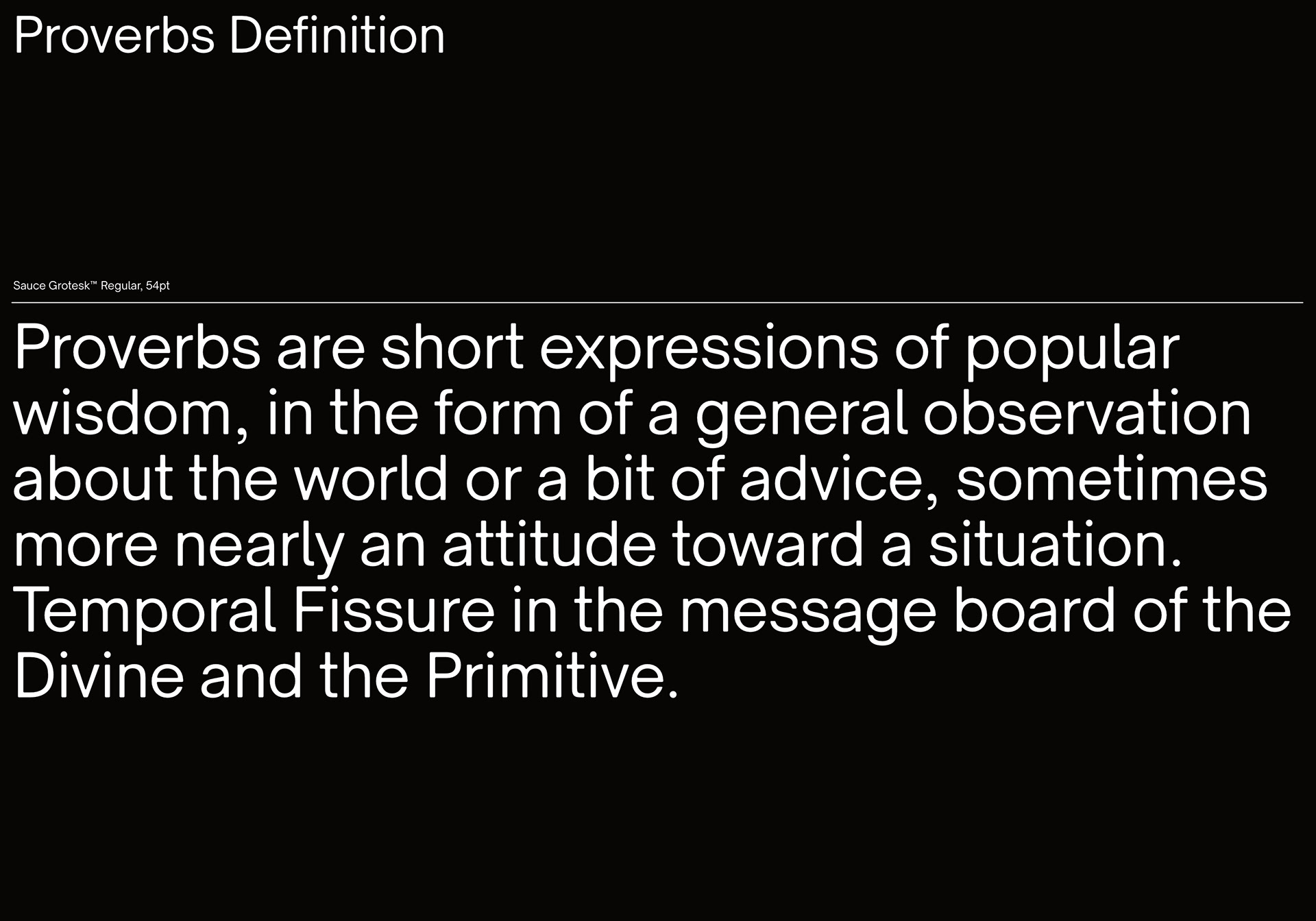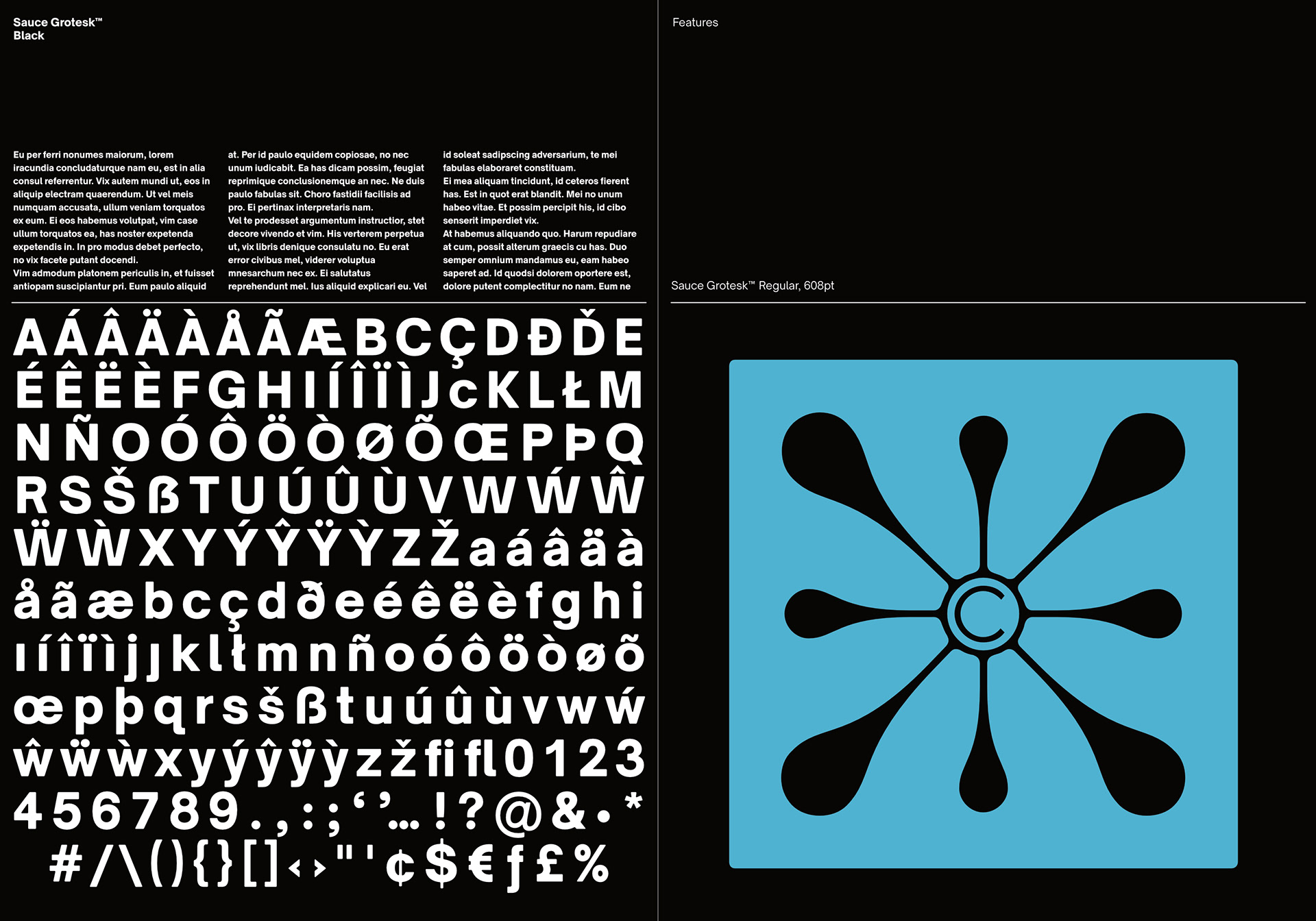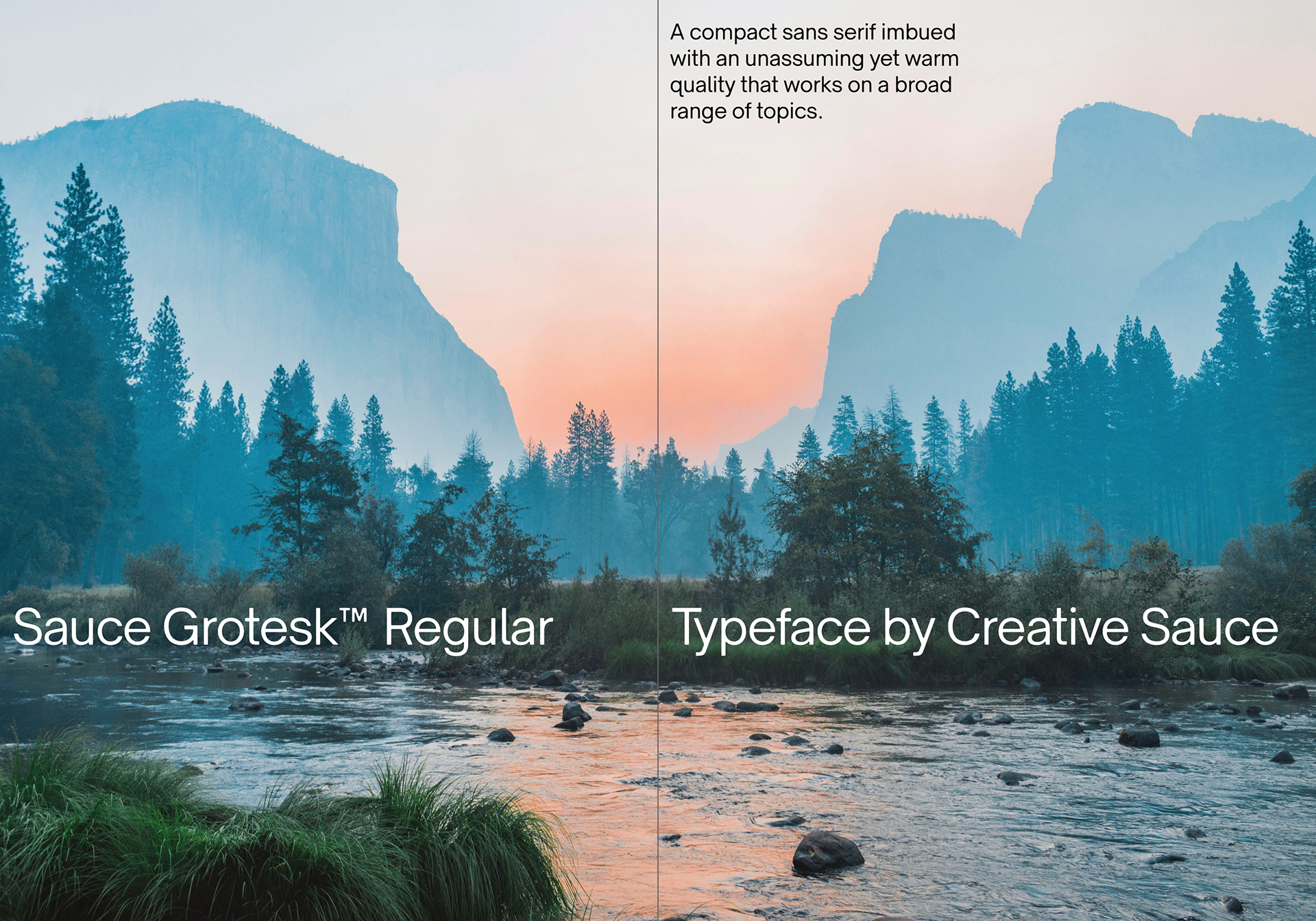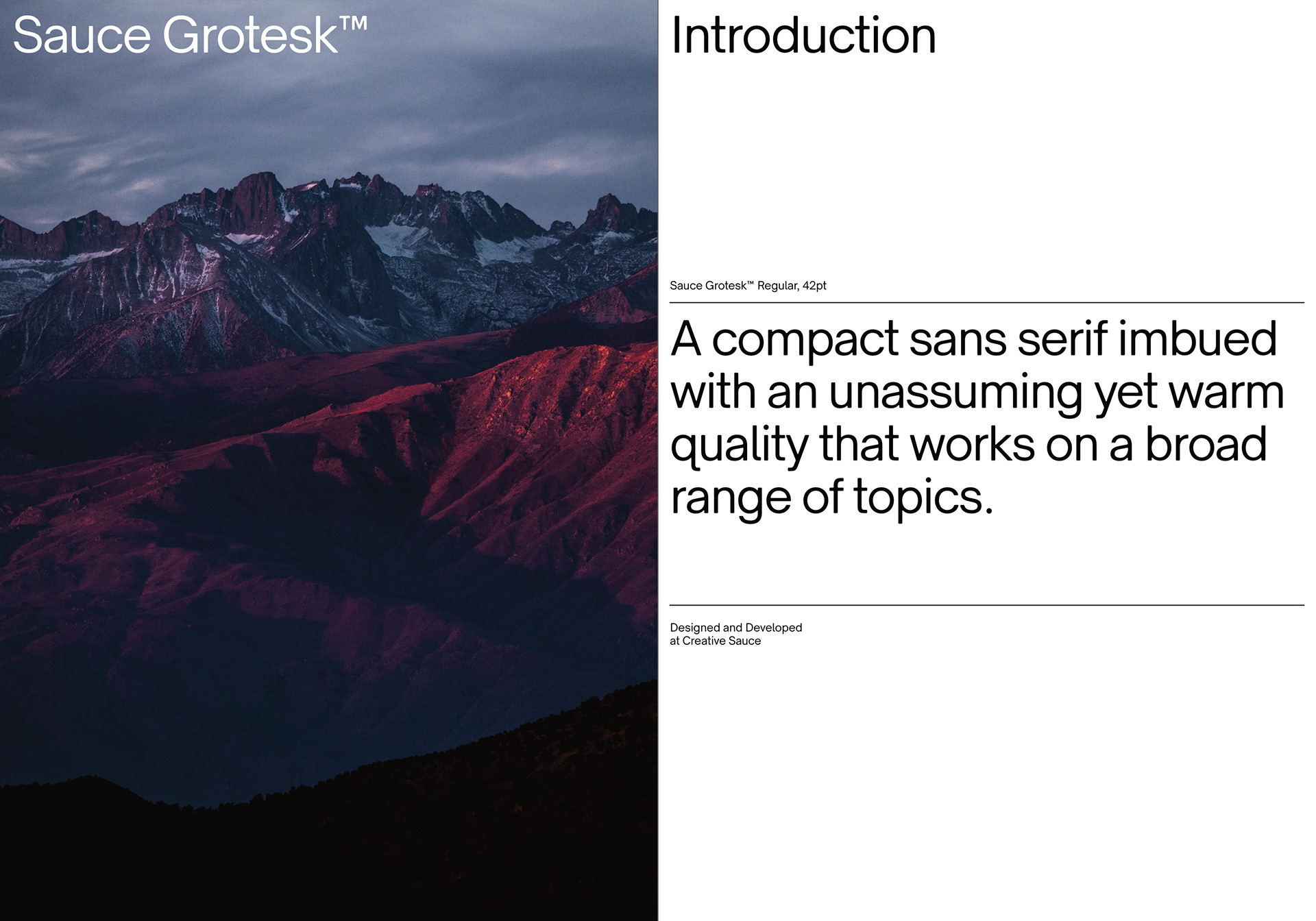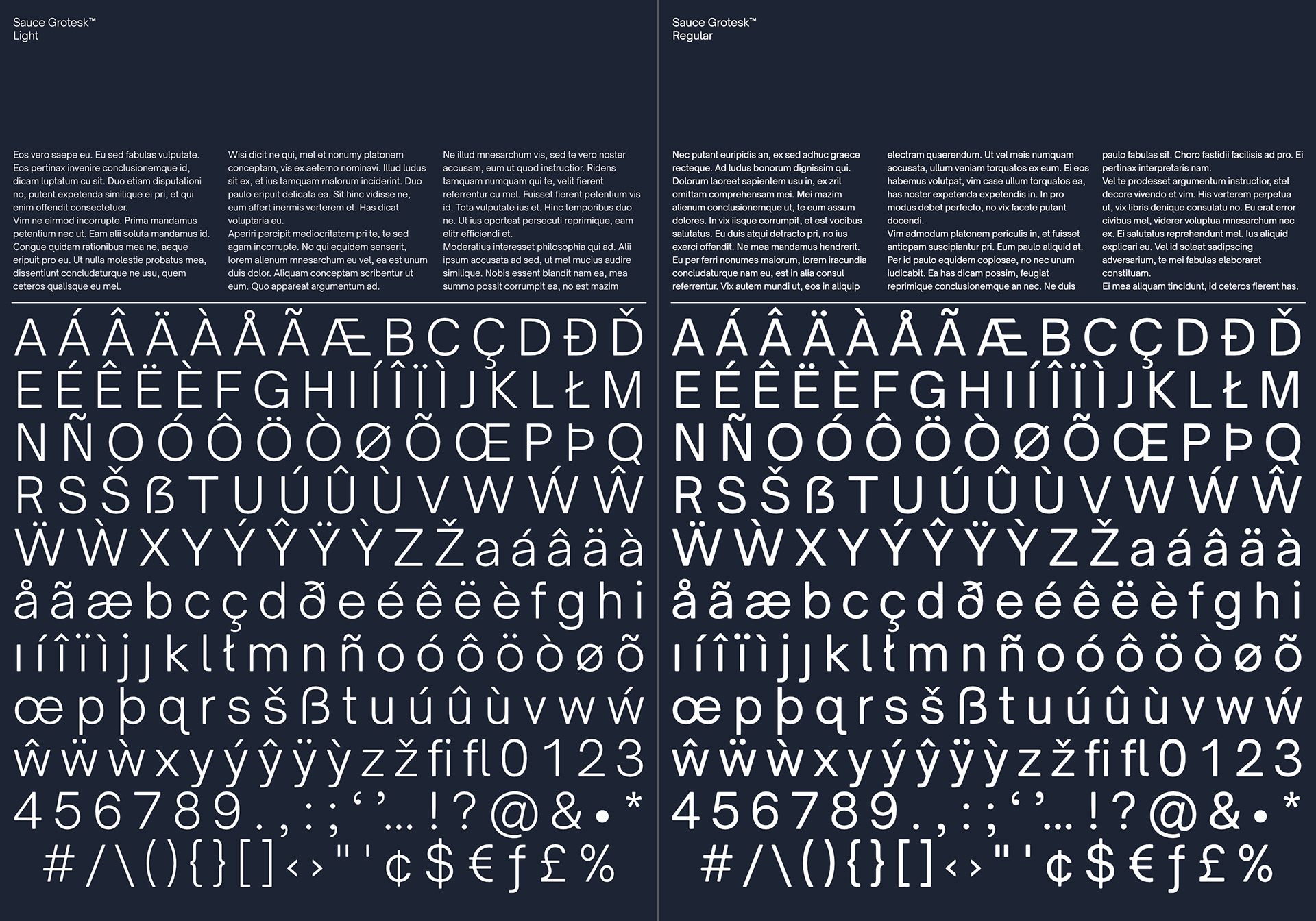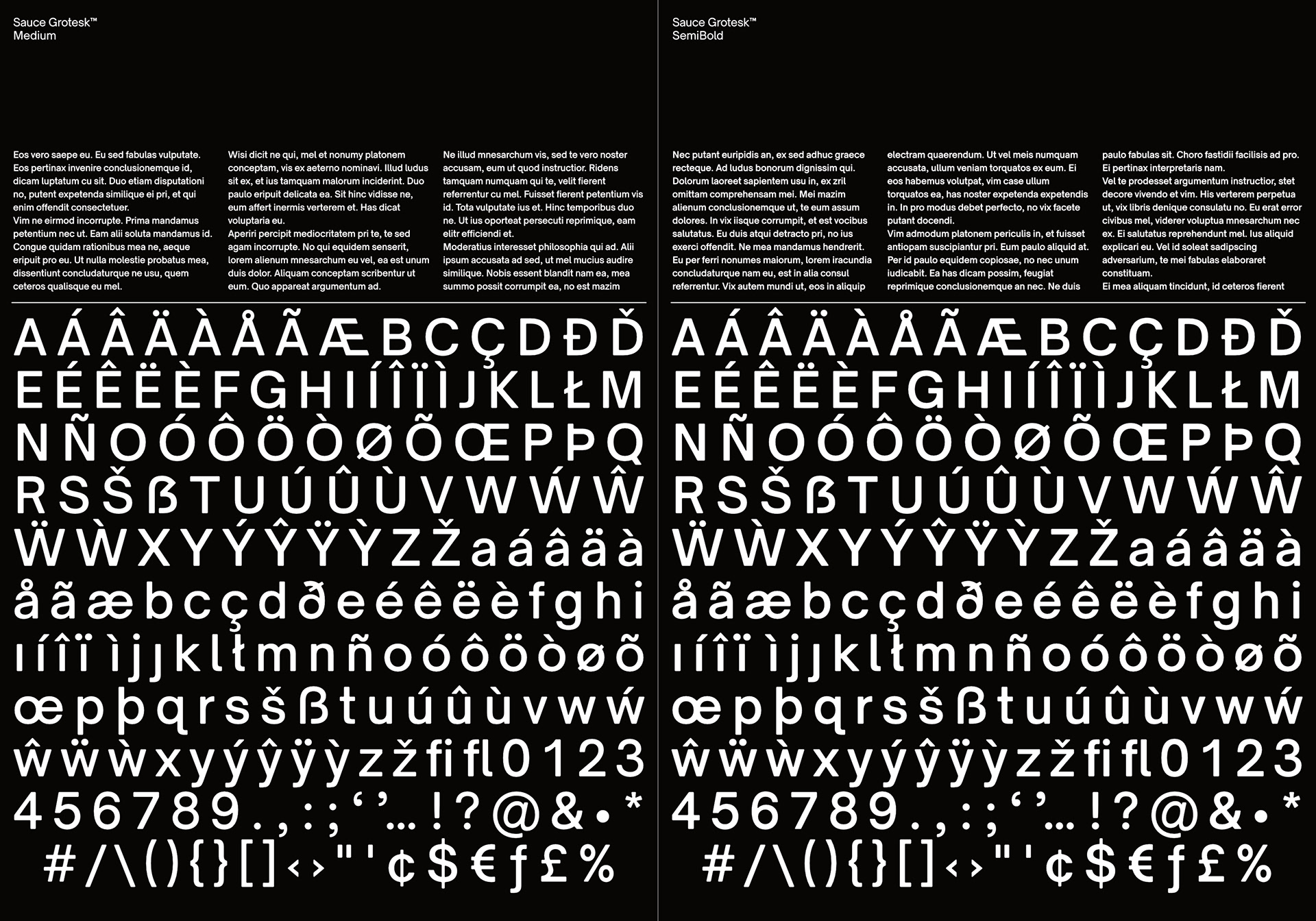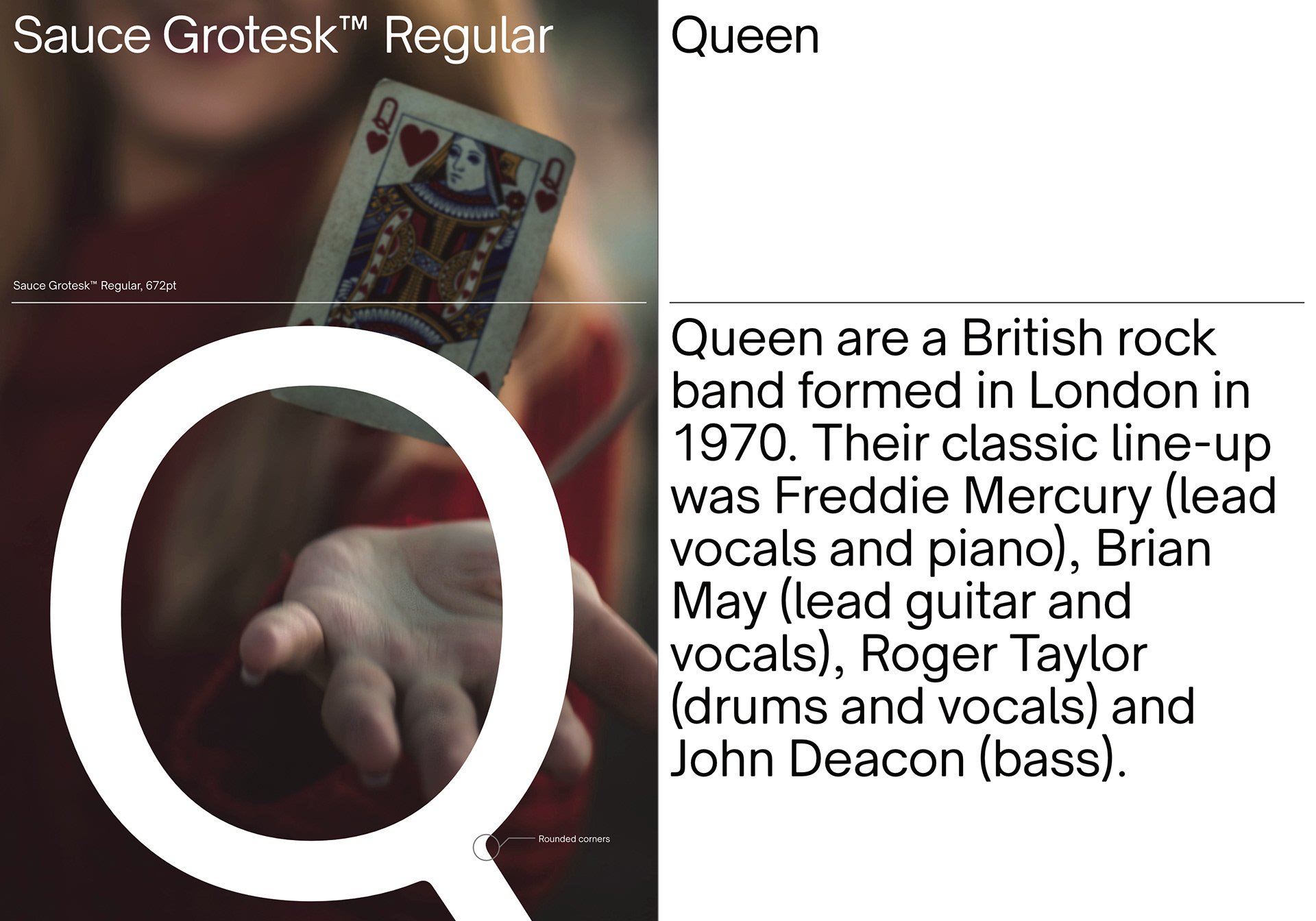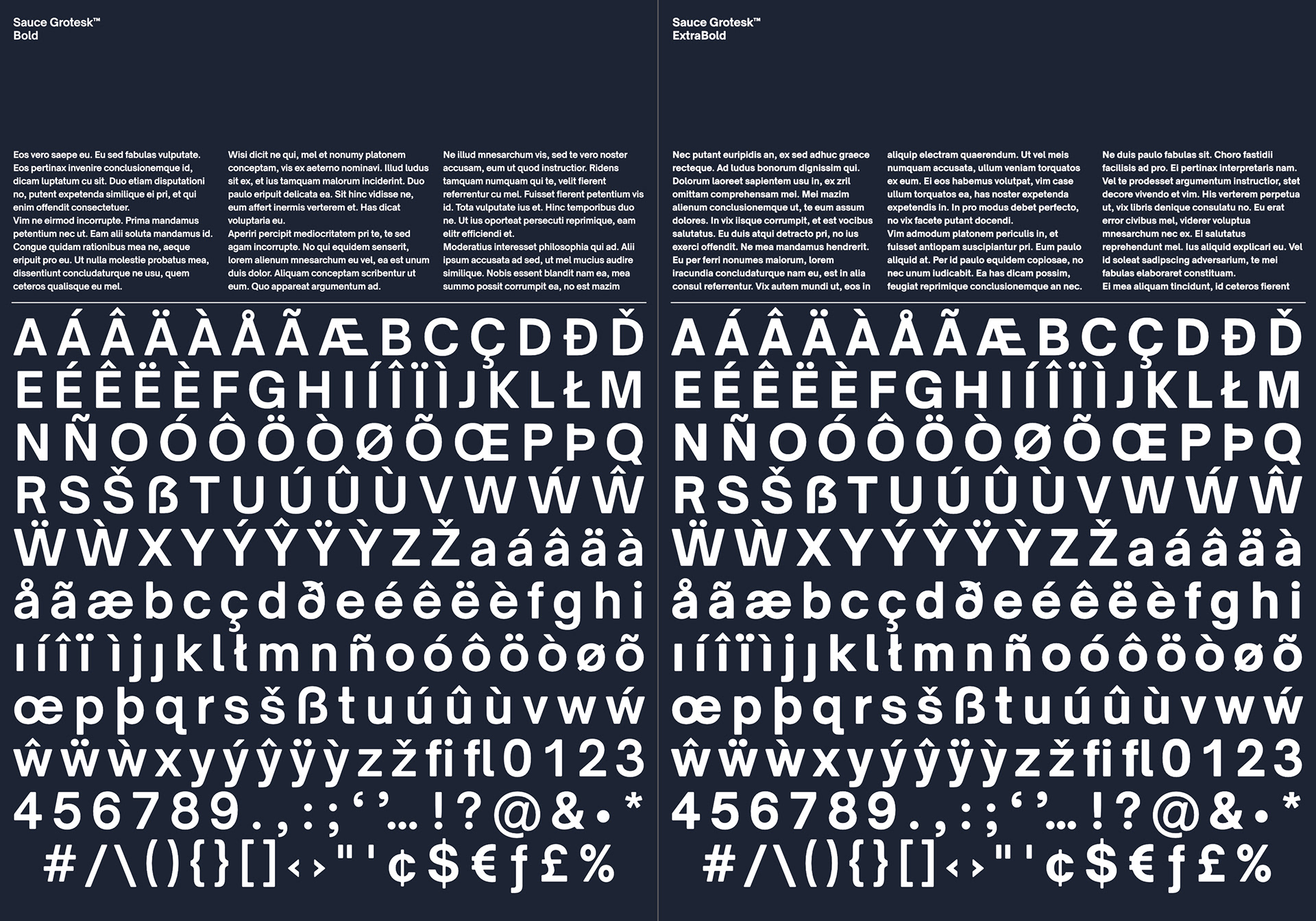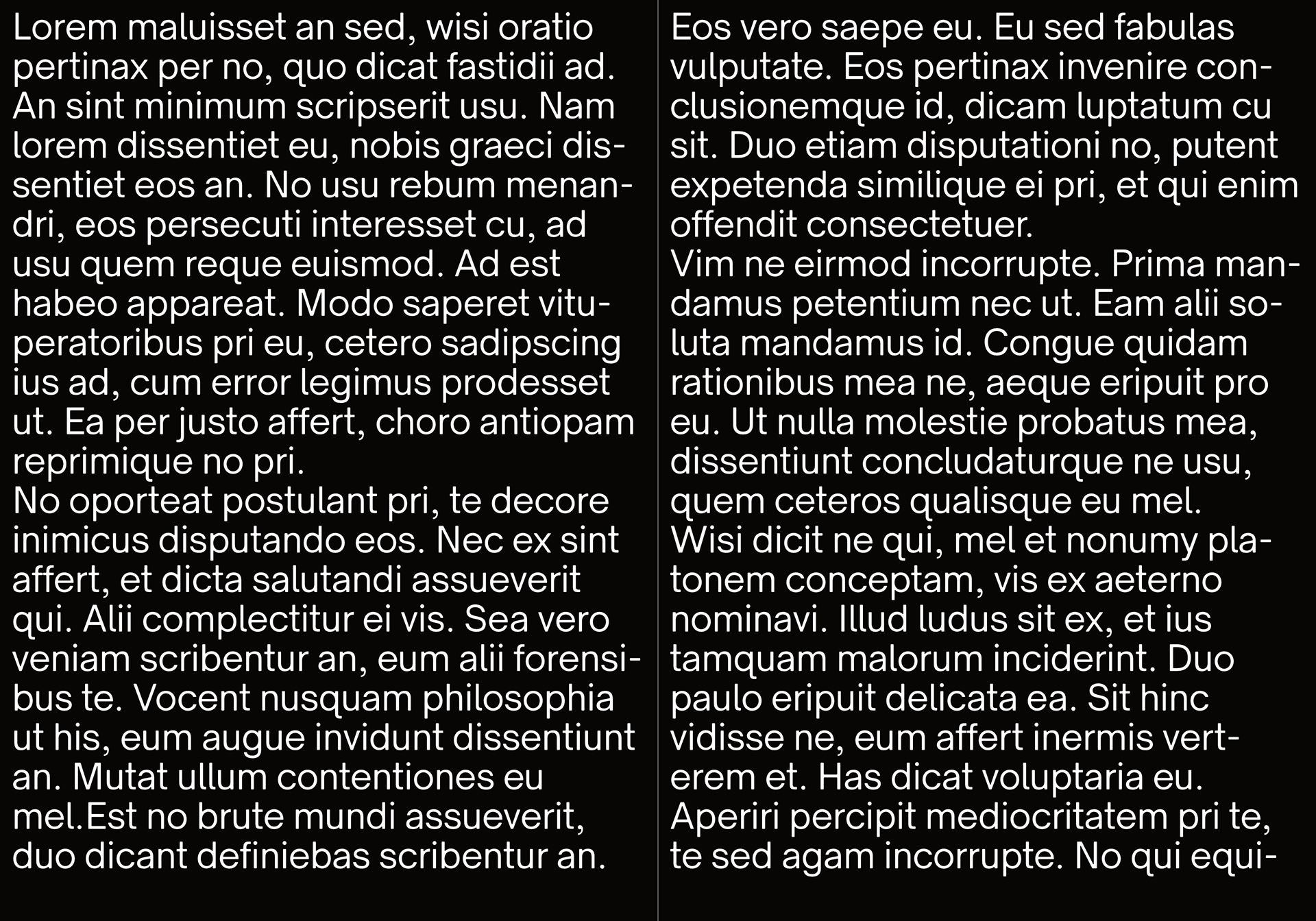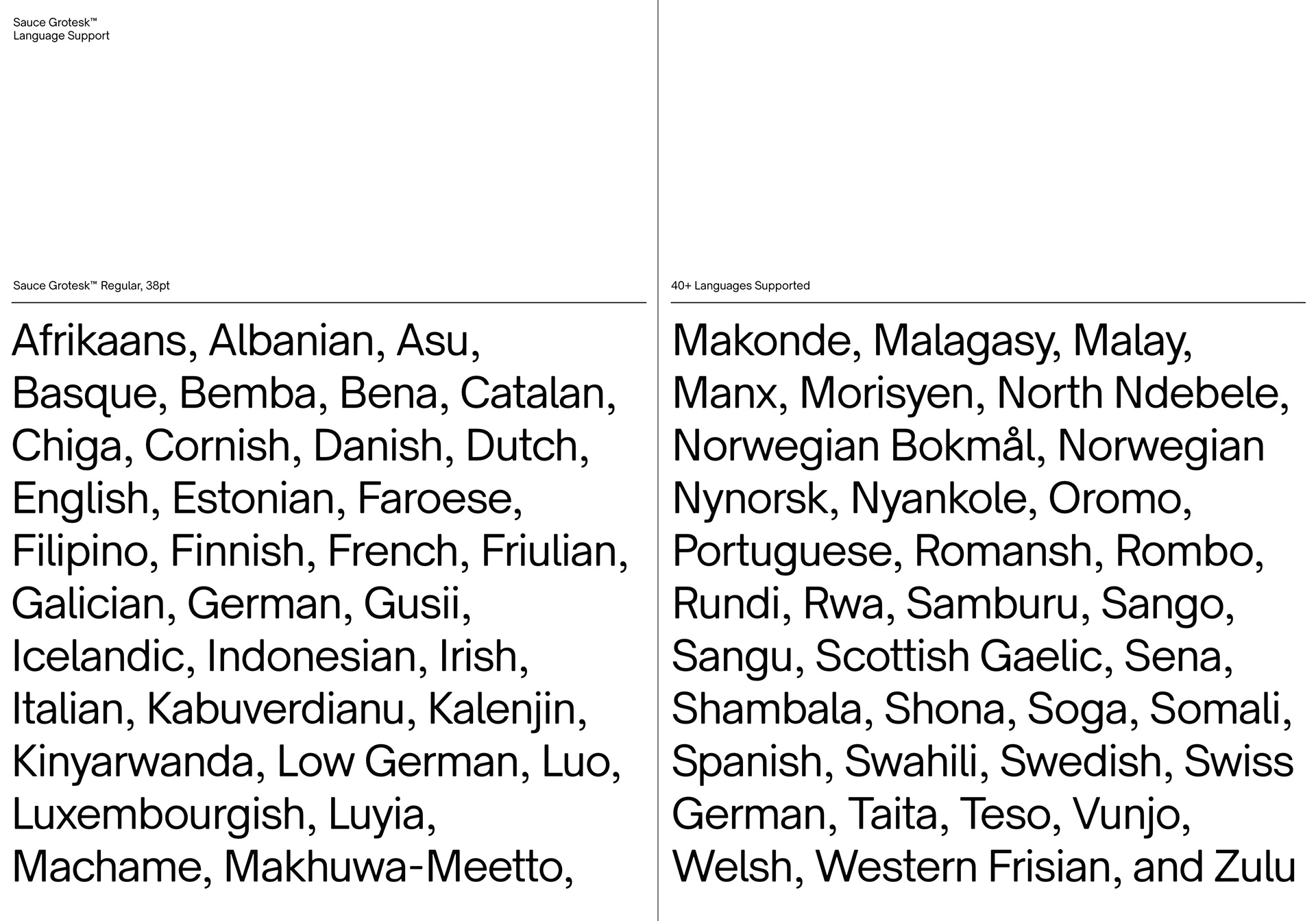
Sauce Grotesk™ is a sans serif typeface that we developed for Creative Sauce's internal type system. It is a compact typeface much like the classic unassuming sans serif grotesques but with softer features that shows fluidity and a sense of easiness. We wanted a typeface that can relate to a broader audience for maximum message clarity while maintaining aesthetic qualities.
Glyphs: 284
Styles: 7
Class: Sans Serif, Modern Grotesque, Soft